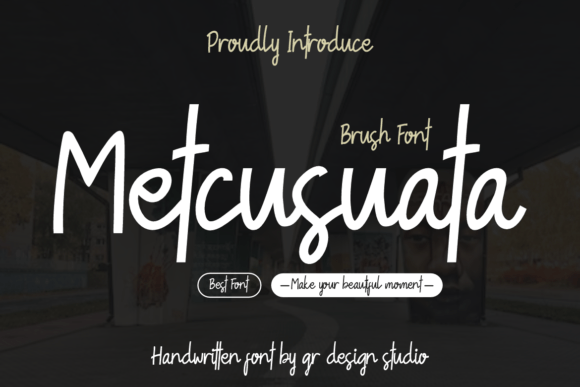
Introducing Metcusuata - An Exuberant Script Font for your Creative Expressions!
Embark on a typographic adventure with Metcusuata, a strikingly bold and authentic handwritten display font, crafted with passion by qrdesignstd. This captivating script is the epitome of artistic flair, sure to add a touch of elegance and personality to any branding endeavor.
Dive into a world of creativity with Metcusuata and witness the transformation of your designs. Its energetic, flowing characters, reminiscent of a skilled calligrapher's hand, will elevate your projects to new heights. Imagine the allure of your logos, the charm of your wedding invitations, the sophistication of your fashion products, and the heartfelt warmth of your greeting cards, all adorned with the exquisite strokes of Metcusuata.
But Metcusuata is more than just a collection of letters; it's an artistic journey that invites you to explore the boundless possibilities of expression. With its innate versatility and captivating spirit, Metcusuata adapts seamlessly to a multitude of design styles and themes. Whether you're seeking a touch of whimsy, a dash of vintage charm, or a burst of contemporary flair, Metcusuata effortlessly rises to the occasion.
Discover the true essence of creativity with Metcusuata, where every letter dances across the page with an infectious energy, captivating the hearts and minds of your audience. Let your designs sing with the rhythm of Metcusuata's graceful curves and expressive strokes. Unleash your inner artist and embark on a typographic voyage like no other.